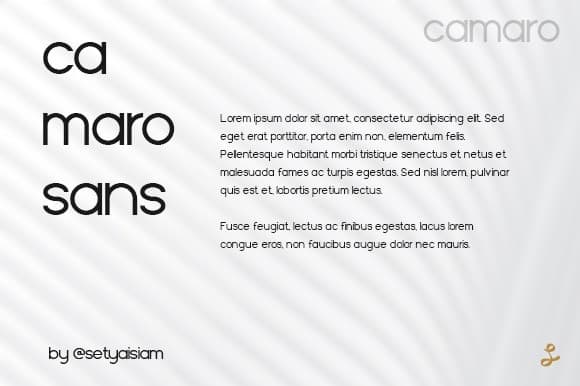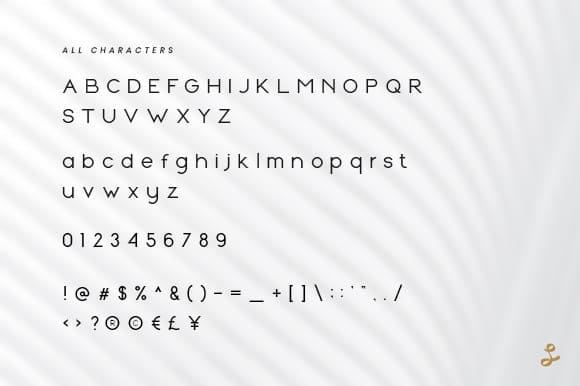
Camaro Sans Serif Font
Camaro Sans Serif Font is a stylish and charismatic sans serif typeface that brings modern and vintage feels that allow you to make a visual journey from thinnest body sans to a very thick expanded display sans serif. It is a font from the designer setyaisiam. Camaron feels equally charming and elegant. It features an incredibly classic style, while still keeping a friendly feel. Camaro works in modern digital interfaces on mobile and web platforms also suitable in humanist sans serif touch for prints and any design projects.